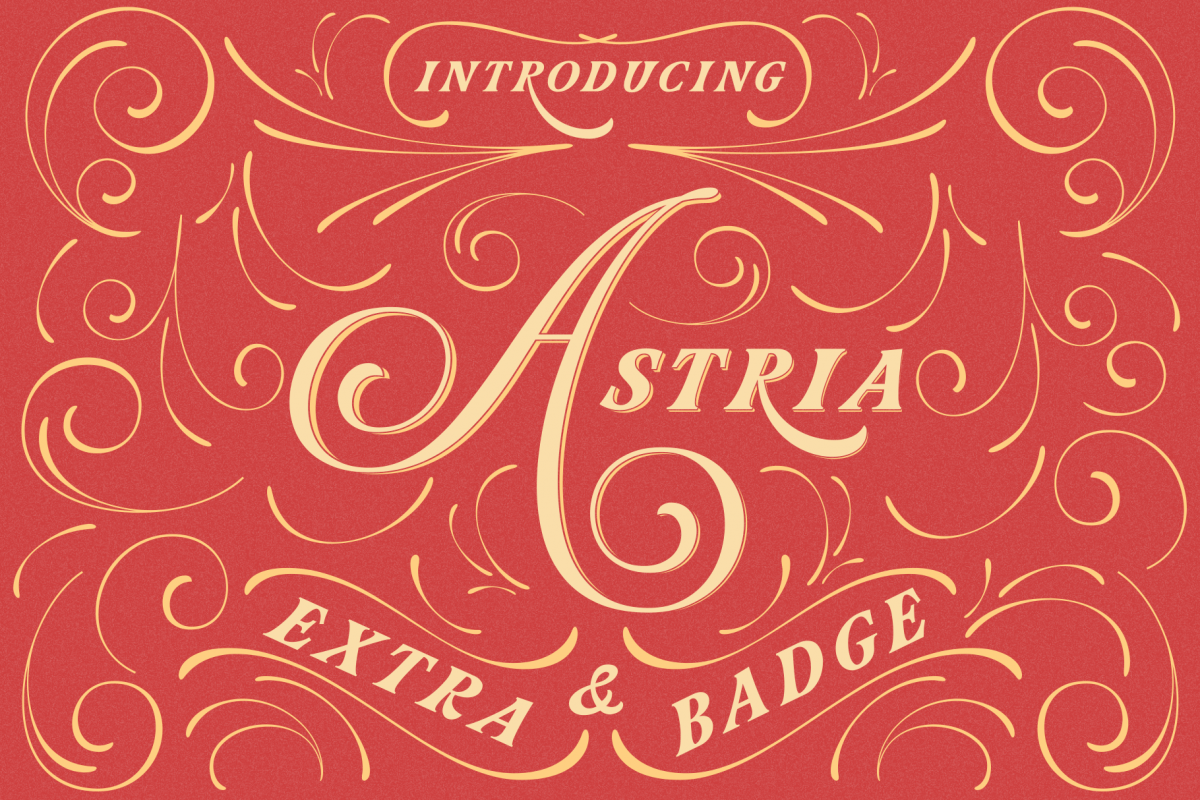
Astria
AstriaExtra-Regular
Astria-Italic
Introducing Astria a hand crafted Font. The fonts are inspired by classic taste, very suitable as to make a design choice for books, magazines, packaging, branding , signage and more other creative project. Astria comes with uppercase, lowercase, numerals, punctuations and so many variations on each characters include opentype alternates.To enable the OpenType Stylistic alternates, you need a program that supports OpenType features such as Adobe Illustrator CS, Adobe Indesign & CorelDraw X6-X7. and more.